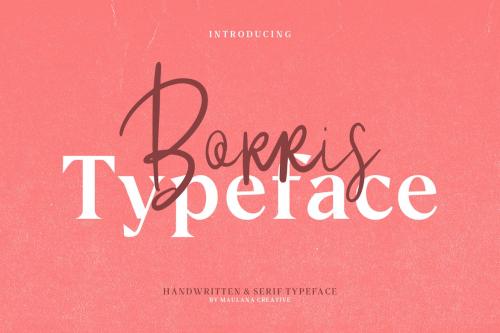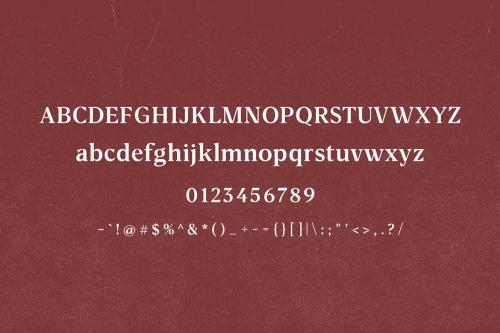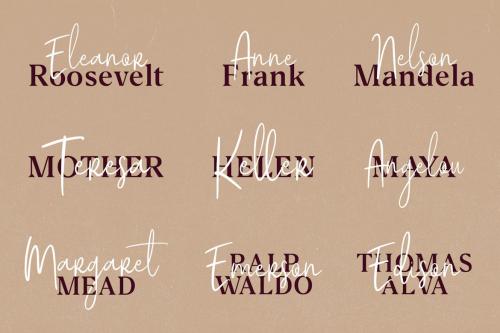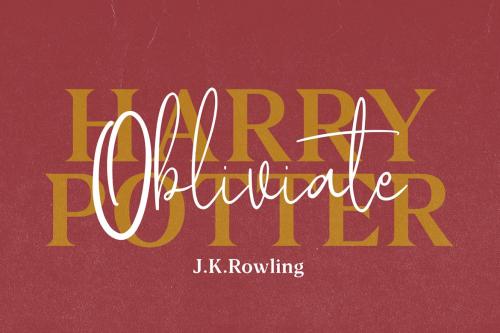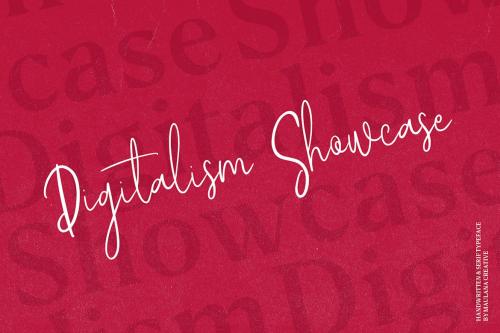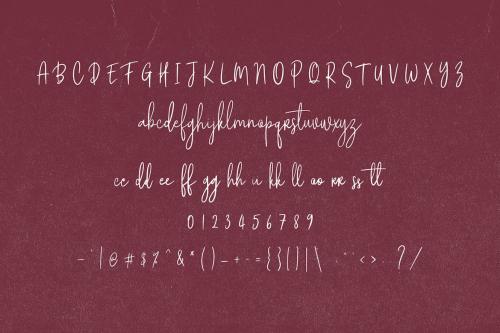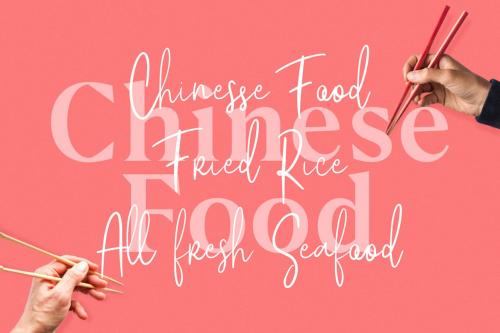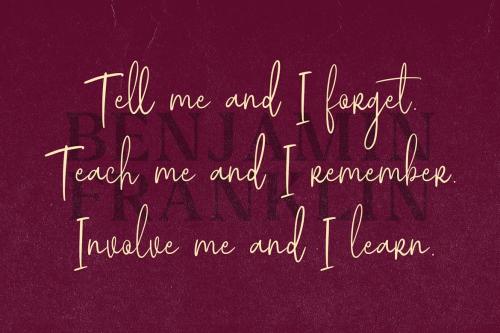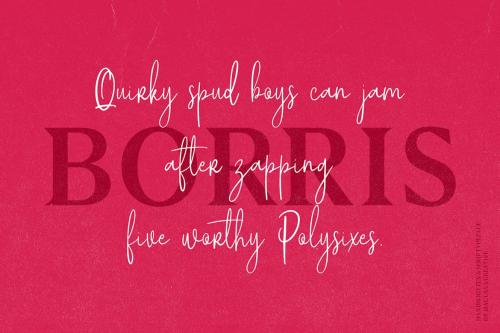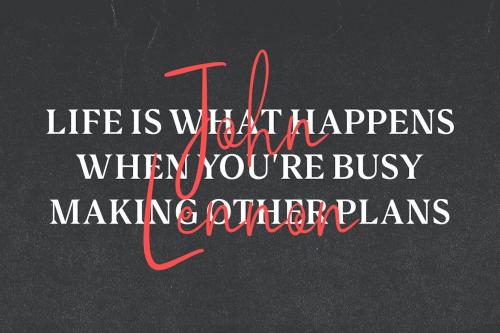
博瑞双峰
Borris Font Duo
Give your designs an authentic handcrafted feel. "Borris" Font is perfectly suited to signature, stationery, logo, typography quotes, magazine or book cover, website header, clothing, branding, packaging design and more.